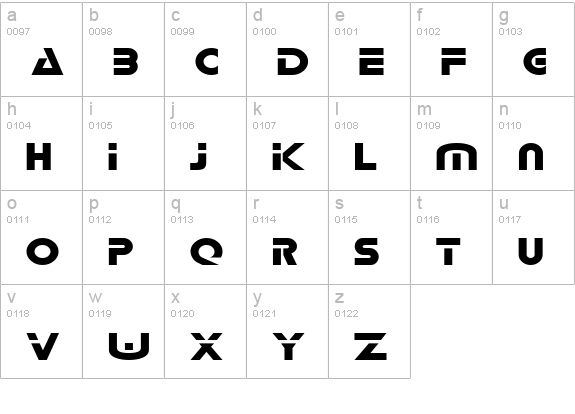
DeltaExtended Normal Font Details
DeltaExtended Normal is the standard, neutral variant in the DeltaExtended typeface family \xE2\x80\x94 well suited to general body text, paragraphs, and standard typographic work.
DeltaExtended Normal font is a versatile and modern typeface that is perfect for a wide range of design projects. With its clean lines and balanced proportions, this font exudes a sense of professionalism and sophistication. Its extended characters provide a unique twist to the traditional sans-serif style, making it stand out from the crowd. What sets DeltaExtended Normal font apart is that it is completely free to download at FontsMarket.com. This means that you can easily access and use this high-quality font in your projects without any cost. Whether you are designing a website, creating marketing materials, or working on a branding project, DeltaExtended Normal font is sure to elevate your work with its sleek and polished look. Download it now and add a touch of elegance to your designs.